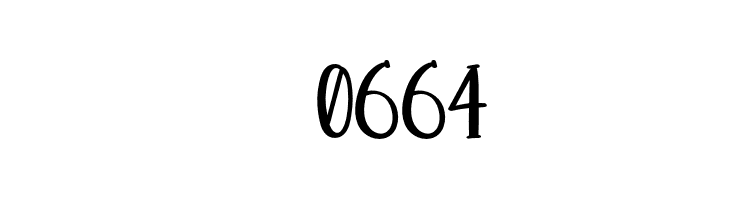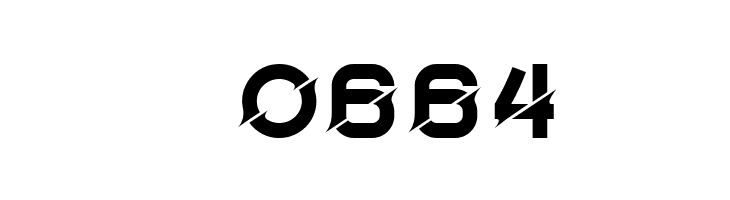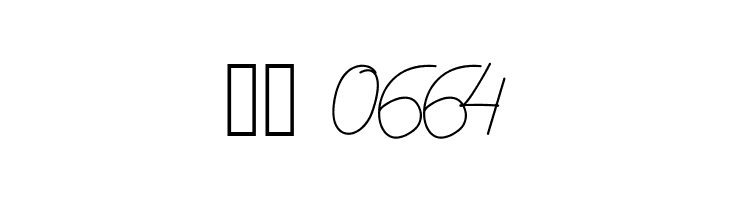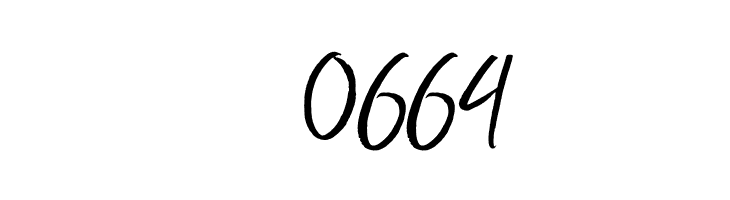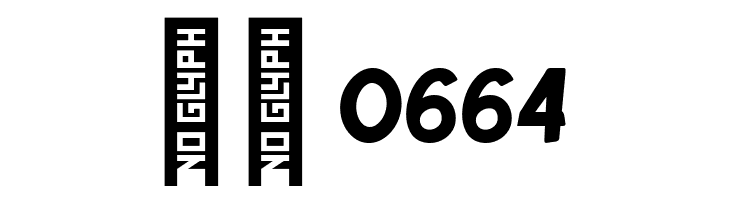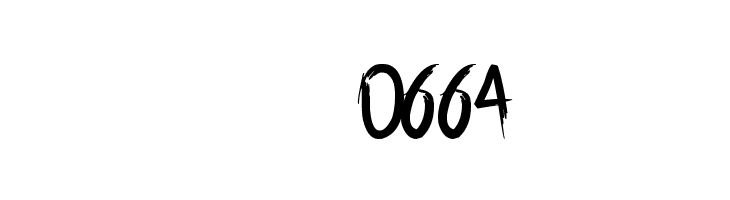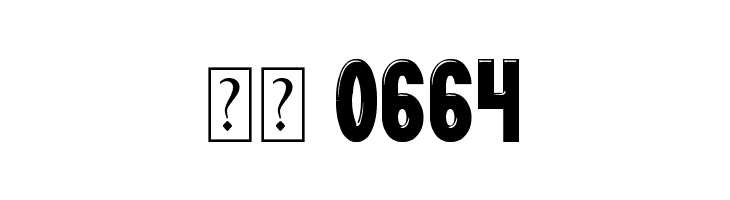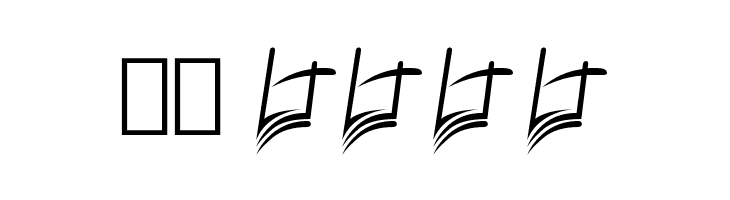
• Bright Light Regular
A bold, three-dimensional font with strong shadow effects and geometric structure.
• Bright Power Regular
A bold, three-dimensional font with a dynamic and futuristic style.
• BrightDailyFREE
An elegant, flowing script font with high contrast and sophisticated loops.
• BrightFREE
A bold, brush script font with dynamic strokes and high contrast.
• Brightness Book Regular
A bold, modern font with sharp, angular cuts and a dynamic style.
• BRIGHTON FREE
A playful, hand-drawn font with a whimsical and casual style.
• BRIGHTONFREE
A playful, hand-drawn font with tall, narrow characters and a whimsical style.
• Brillante St
A bold, shadowed font with a modern, geometric style.
• Brilyon Script FREE
A bold, expressive script font with fluid, interconnected strokes.
• BrilyonScriptFREE
A bold, dynamic script font with fluid, connected letterforms and a modern, elegant style.
• Bringshoot
A dynamic, expressive handwritten font with fluid strokes and a brush-like texture.
• Bringshoot
A dynamic and expressive handwritten font with fluid strokes.
• Brish Hair
A dynamic and flowing script font with a handwritten style.
• Brish Hair
A dynamic and flowing script font with elegant, interconnected strokes.
• Bristine Signature Demo
A cursive, signature-style font with elegant, flowing strokes.
• Britney FREE
A lively, expressive script font with flowing cursive letters.
• BritneyFREE
A lively and expressive script font with fluid, dynamic strokes.
• Brittanict Script
A dynamic and flowing script font with elegant cursive letterforms.
• Broadbandoblique